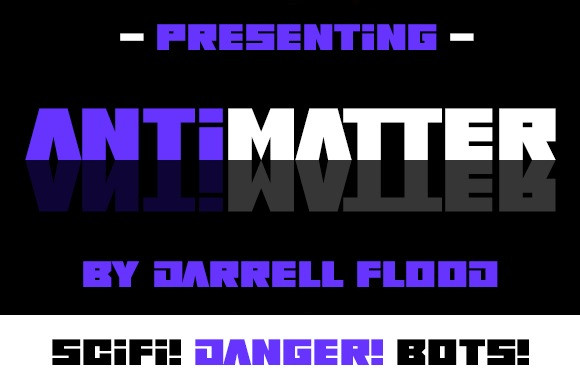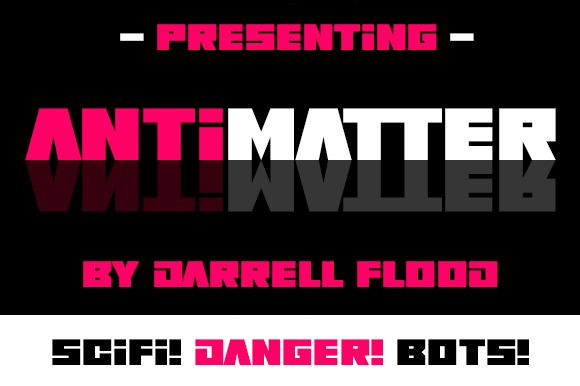
Antimatter Font
Antimatter Display Font, a futuristic sci-fi font in a bold, square, robotic style. Perfect for alien encounters, high tech themes and general use!